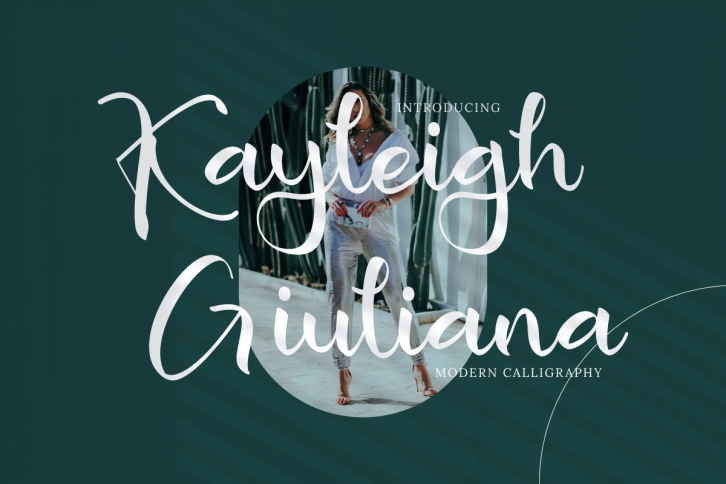
Kayleigh Giuliana is a trendy and chic script font. You can use it for various projects, such as blog posts, logos, branding, ads, invitations, greeting cards, planners, photo albums, decorations, and much more.